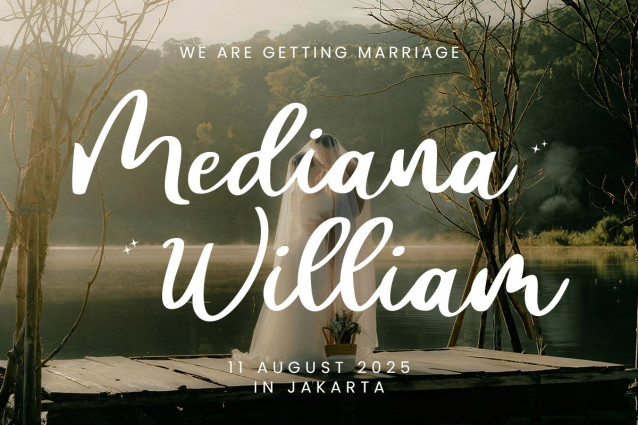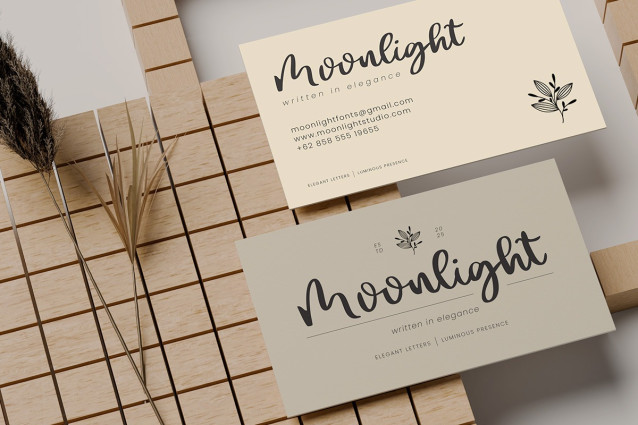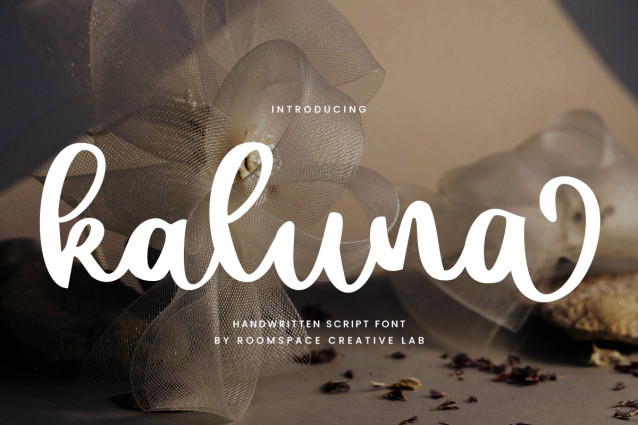
Kaluna Script Font
Kaluna Script Font a beautifully handwritten script font that brings elegance, warmth, and personal charm to every design. With soft curves, graceful connections, and a natural flow, Kaluna captures the feel of modern calligraphy with a clean yet handcrafted touch. Each letter is carefully drawn to look effortlessly beautiful, making it perfect for those seeking a romantic and personal aesthetic.
Whether you’re designing wedding invitations, logos, packaging, or inspirational quotes, Kaluna adds an emotional and timeless feel to your visuals. Its smooth, consistent strokes make it easy to use and lovely to read, giving your words a soft yet impactful presence.